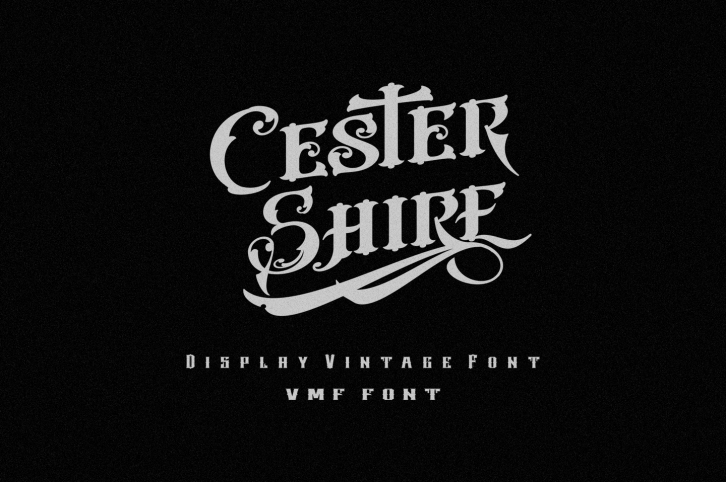
this vintage style font with open type feature, this inspire by many olds poster so i decide to make this old vintage font style. hope you like this demo version. thanks :)